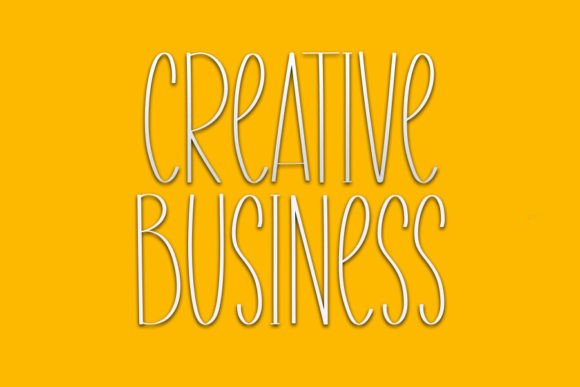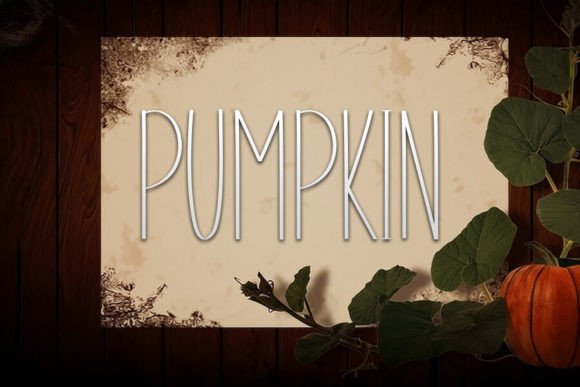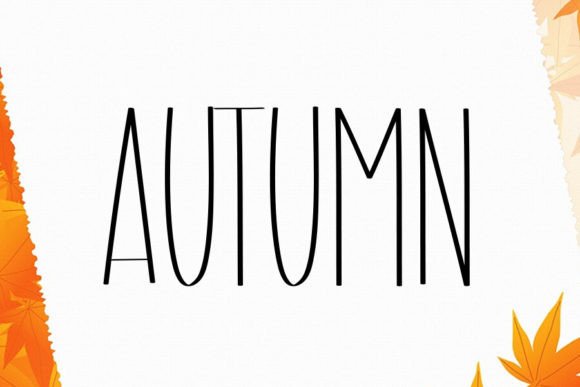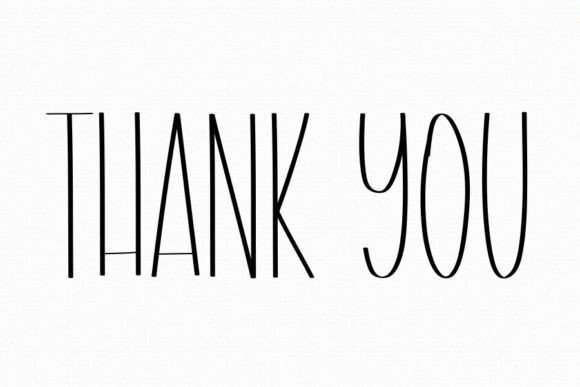
The Perfect Font for Your Creative Masterpiece
Have you ever stared at a blank page, searching for the perfect words to bring your design to life? That’s where the magic happens – when inspiration strikes and creativity flows. It’s the moment when the right font can make all the difference, elevating your project from ordinary to extraordinary.
| 👤 Author | salma studio |
Enter Blueberry Font, a stunning handwritten font that adds a touch of elegance and sophistication to any design. With its contemporary atmosphere and impeccable form, inspired by timeless classic calligraphy, Blueberry Font is the perfect choice for designers looking to create a lasting impression. Whether you’re working on a branding project, a website, or a social media campaign, Blueberry Font is sure to bring a touch of class and refinement to your work.
Blueberry Font Key Features
- Font Family: Blueberry is a sans-serif font family designed to be highly legible and readable in digital environments.
- Font Size: The font family includes various font weights, ranging from 100 to 900, with corresponding font sizes from 8 to 72 points.
- Resolution: Blueberry Font is optimized for use at high resolutions, making it suitable for use in digital displays and print materials.
- Unique Characteristics: The font features a unique blend of geometric and rounded shapes, giving it a friendly and approachable feel while maintaining high legibility.
- Language Support: Blueberry Font supports a wide range of languages, including Latin, Cyrillic, Greek, and many others, making it a versatile choice for global applications.
Designer Review: Blueberry Font
Overall, I think the Blueberry Font is a sweet addition to any design project. Here’s what I like about it:
- ✨ The unique, handwritten style is perfect for creating a friendly and approachable tone.
- ✨ The font is highly legible, making it great for body text and headings.
- ✨ The font’s playful vibe is perfect for branding and marketing materials.
- ⚠️ The font may not be suitable for formal or professional projects, as its casual style may come across as unprofessional.
- ⚠️ Some characters may not be as refined or detailed as others, which can affect the overall quality of the font.
- ⚠️ The font may not be as versatile as other fonts, as its unique style may not be suitable for a wide range of applications.
Overall, I think the Blueberry Font is a great choice for projects that require a friendly and approachable tone. While it may not be suitable for all projects, its unique style and high legibility make it a great addition to any design arsenal.
Tips for Getting the Most Out of Blueberry Font
Here are some tips to help you get the most out of Blueberry Font:
- Use Blueberry Font for headings and titles to add a touch of elegance and sophistication.
- Pair Blueberry Font with other elegant fonts for a cohesive look.
Blueberry Font is perfect for:
Ostrich Sans is a sans-serif font that is highly legible and versatile. It is ideal for use in digital interfaces, such as websites, mobile apps, and video games. Ostrich Sans is more geometric and modern compared to Blueberry Font, which has a more playful and handwritten feel.
Alex Brush is a script font that is highly decorative and elegant. It is best used in contexts where a touch of sophistication and luxury is desired, such as in high-end branding, packaging, and advertising. Alex Brush has a more refined and cursive feel compared to Blueberry Font, which is more playful and informal.
Rock Salt is a sans-serif font that is highly legible and easy to read. It is ideal for use in digital interfaces, such as websites, mobile apps, and video games. Rock Salt has a more rugged and industrial feel compared to Blueberry Font, which has a more playful and whimsical feel.